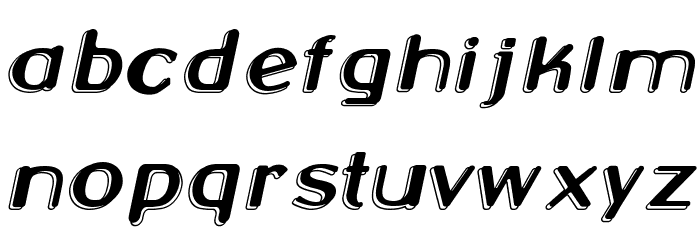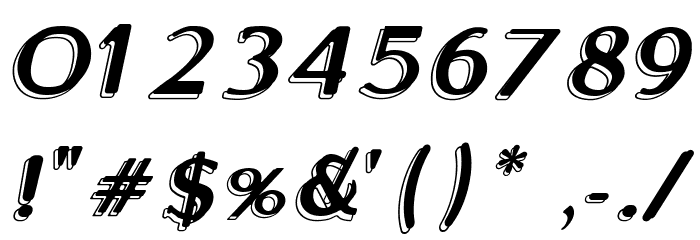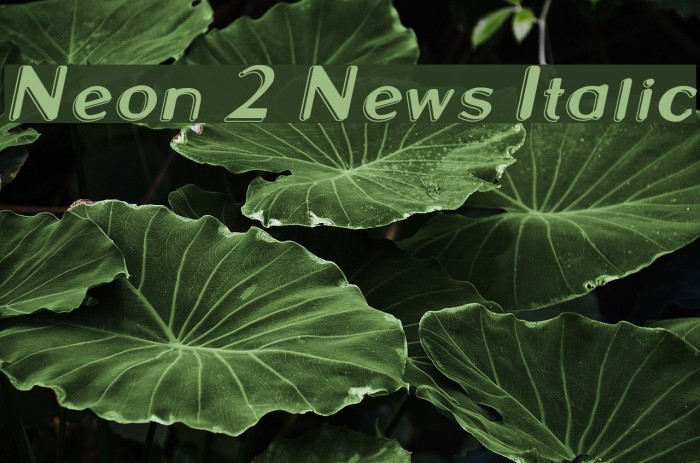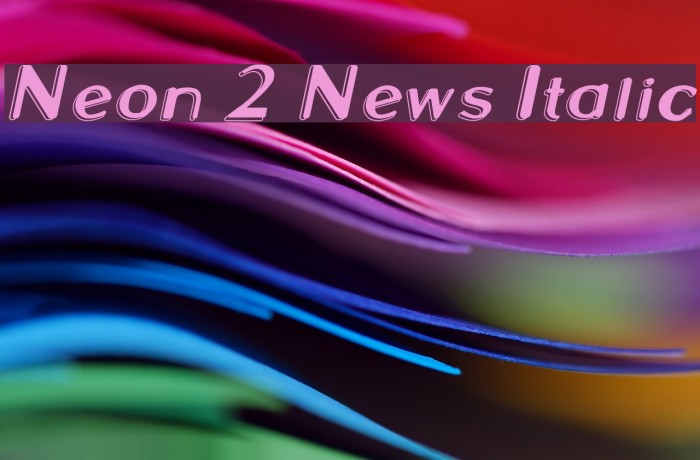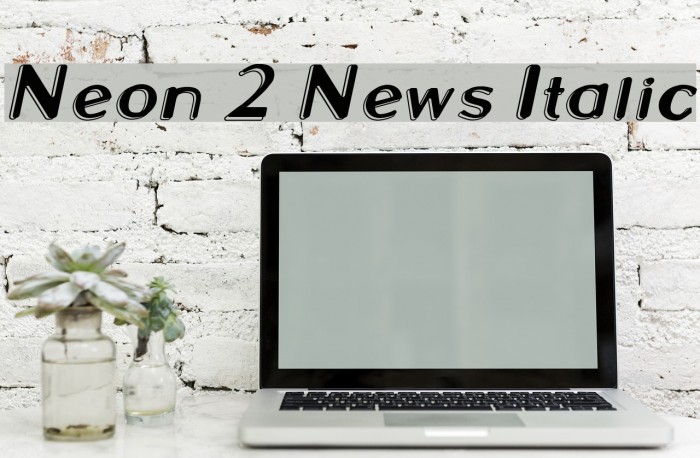
Neon 2 News Italic Font
This font features a dynamic and modern italic style with a distinct slant, giving it a sense of motion and energy. The characters are bold with a slight shadow effect, enhancing their visibility and adding depth. The uppercase and lowercase letters maintain a consistent style, with smooth curves and clean lines. Numbers and special characters are designed to match the overall aesthetic, ensuring uniformity across all elements. This font is ideal for projects that require a contemporary and eye-catching look.
A bold, italic font with a modern slant and shadow effect.
- Proposed Projects: Ideal for headlines, advertising, branding, and digital media where a modern and dynamic appearance is desired.
- Use Case: Headlines, Logos, Advertising